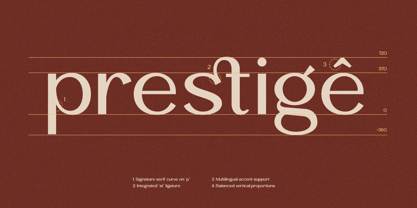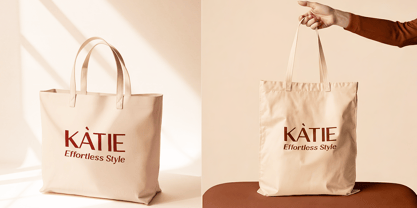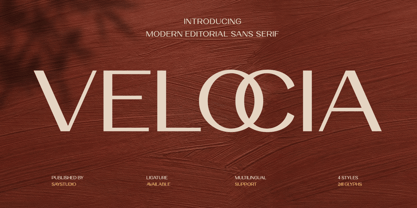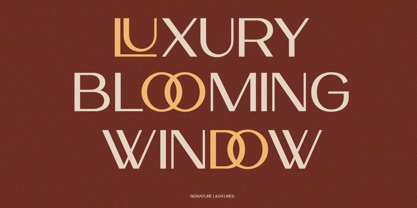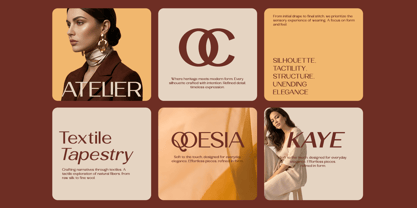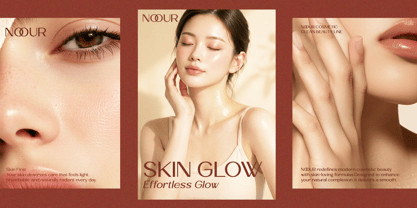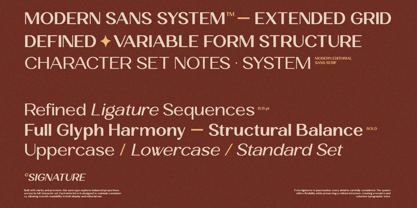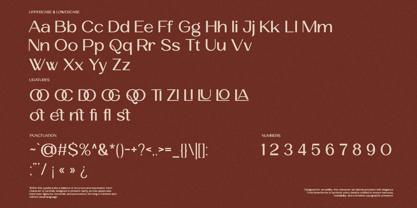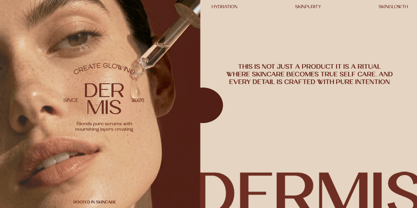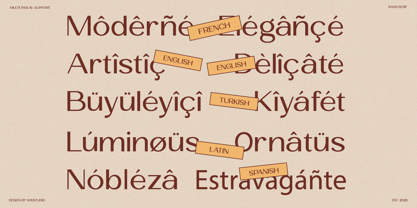
Velocia
Velocia is a modern editorial sans serif typeface that embodies elegance through its simplicity and refined geometry. With clean lines and subtle character details, this font offers a contemporary yet timeless aesthetic, making it ideal for high-end visual communication. The distinctive ligature feature adds a unique touch, enhancing sophistication while ensuring readability. Designed for editorial excellence, Velocia excels in fashion magazines, branding projects, luxury packaging, and digital campaigns. Its balanced proportions and smooth curves create a polished look that is perfect for headlines, logos, and stylish layouts. Whether in print or digital media, Velocia provides a premium visual experience. With multilingual support and various styles, Velocia offers flexibility for global and creative applications. It empowers designers to create elegant compositions with consistency and style, making it a reliable choice for modern branding that demands both beauty and functionality.